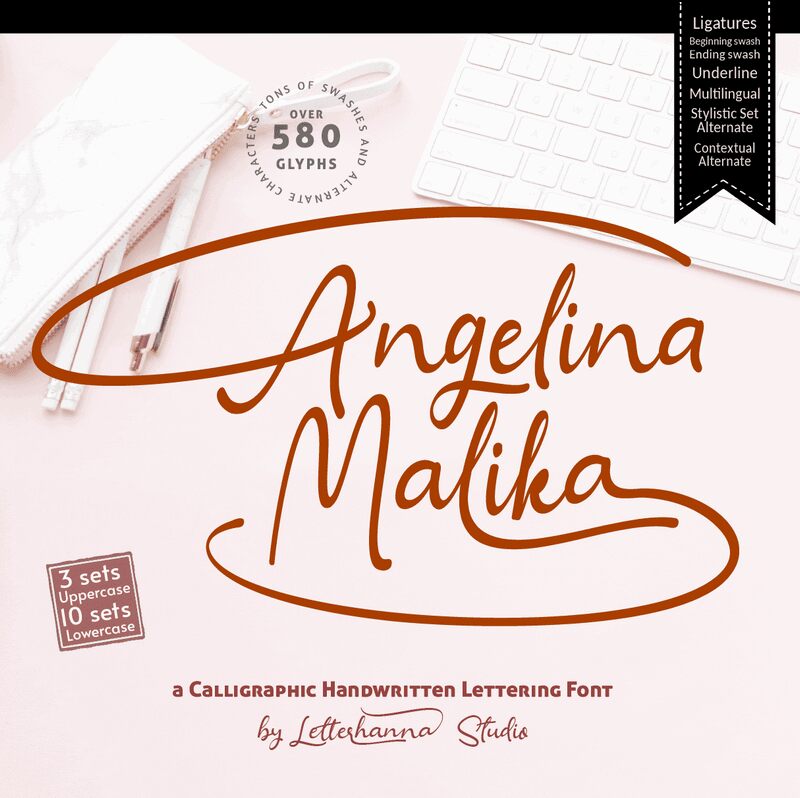
Angelina Malika font is a free handwritten font designed by the Letterhanna Type Foundry. This font presents a perfect blend of elegance and modern calligraphy, offering an expressive flow that adds an artistic flair to any design piece. Suitable for both contemporary and classic usage, it boasts a relaxed sophistication that brings an emotional warmth and personal touch to projects. Its versatile appeal allows for easy incorporation of this signature style into any design.
Angelina Malika’s versatile visual appearance is suitable for a wide range of applications. From wedding invitations, furniture packing, and luxury stationery to cosmetics, books, websites, and movies, this font never misses its mark. Further use examples include restaurant menus, clothing store logos, greeting cards, signages, magazines, logos, packaging, and more.